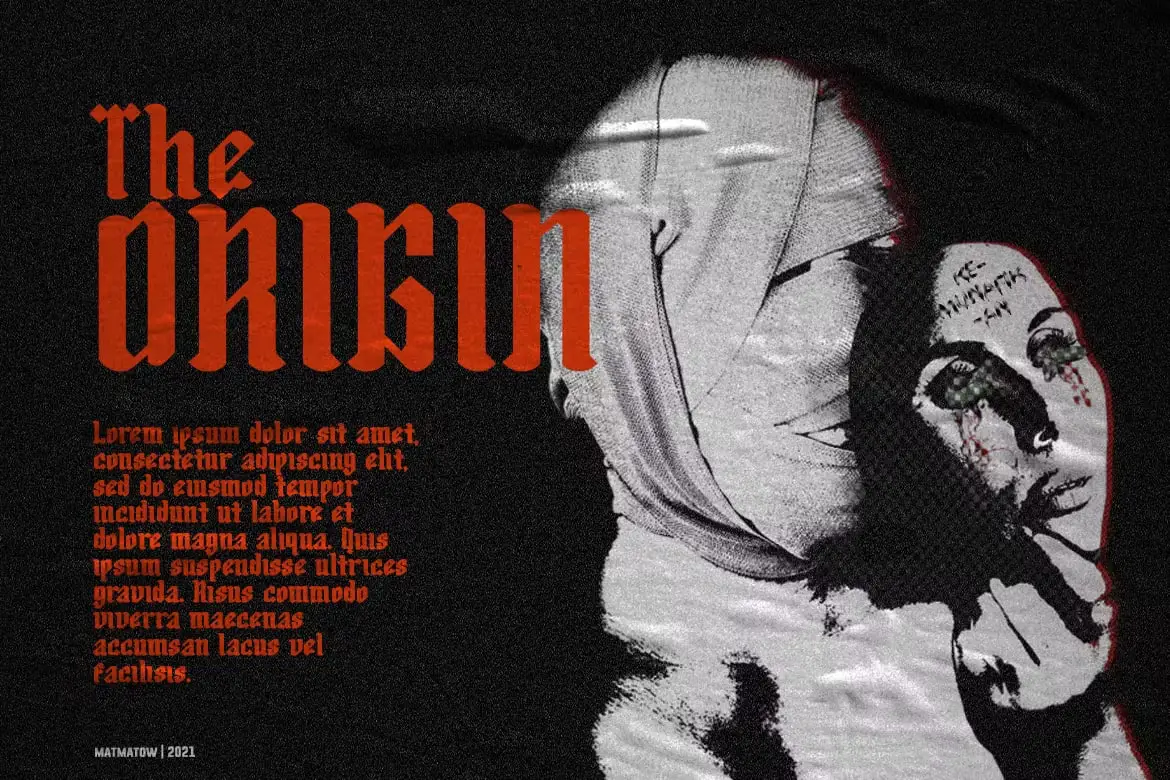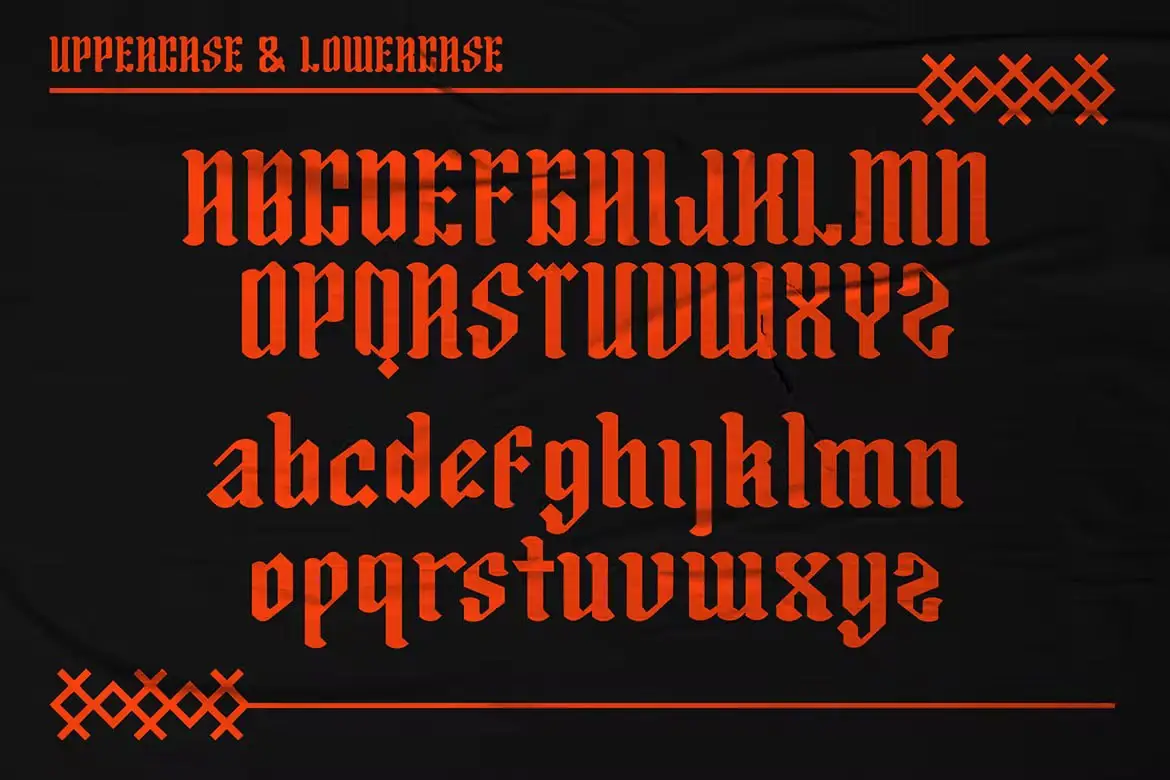
Handecke-Gothic Display Typeface
The Handecke-Gothic Display Typeface is a striking font designed to make a bold statement in any project. With its unique gothic style, this typeface is perfect for headlines, branding, and any design that requires a touch of elegance and sophistication.
• Distinctive gothic design
• Styles: Display
• Ideal for logos, posters, and advertisements
• Great for web and print applications
• Combine with complementary fonts for a balanced design